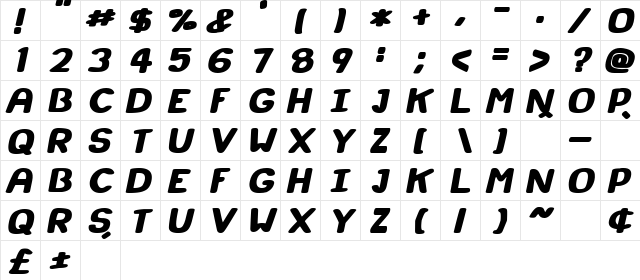
Super Marker Italic
Design Context for Super Marker Typeface
Super Marker takes a measured approach to typography — its balanced proportions and neutral character make it a reliable workhorse for both digital and print work. The slanted form adds forward momentum and visual energy.
Pro Tip: Try Super Marker for annotation and caption copy alongside an upright companion — the contrast in angle creates a dynamic but ordered typographic system.